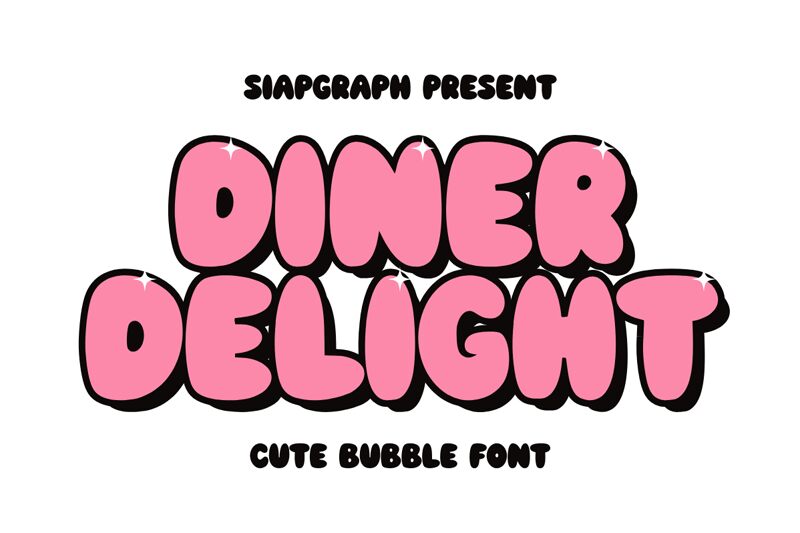
Diner Delight font by Siapgraph is a free cartoon font embodying a playful retro-inspired essence. The font’s friendly appearance is derived from a combination of its rounded silhouette, casual vibe, and classic display style. Diner Delight can pick anyone’s attention due to the nostalgic 1950s diner feel it creates. Its artistic individuality stems from its uniquely designed special characters that combine together to make informal and approachable typographical projects.
This fun resource works for creative and playful headlines in a wide range of projects. Use it for book covers, logos, posters, invitations, branding, and packaging of food and drinks products. Diner Delight is also suitable for children’s books and products, or any retro-themed project. It can be perfectly combined with 1950s diner style images of milkshakes, burgers, cars, motorbikes, etc.